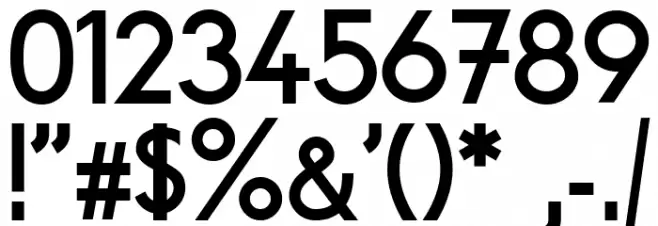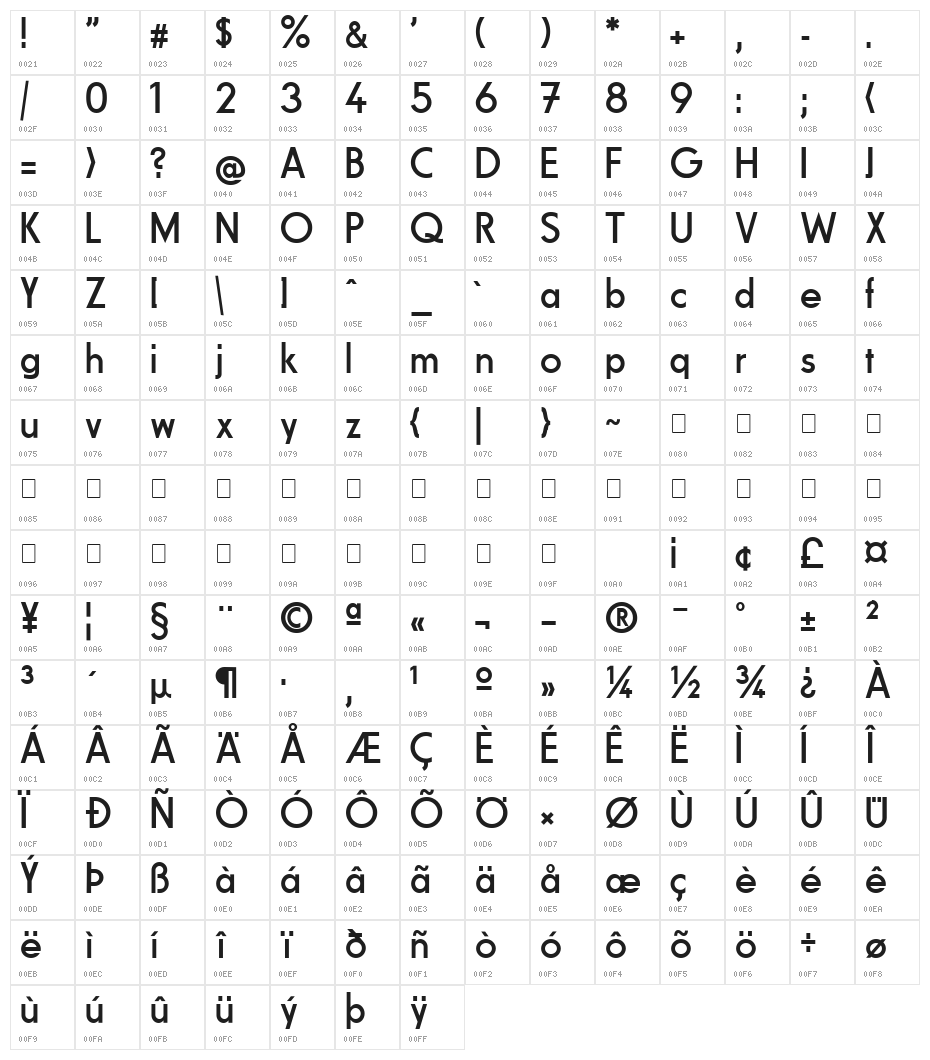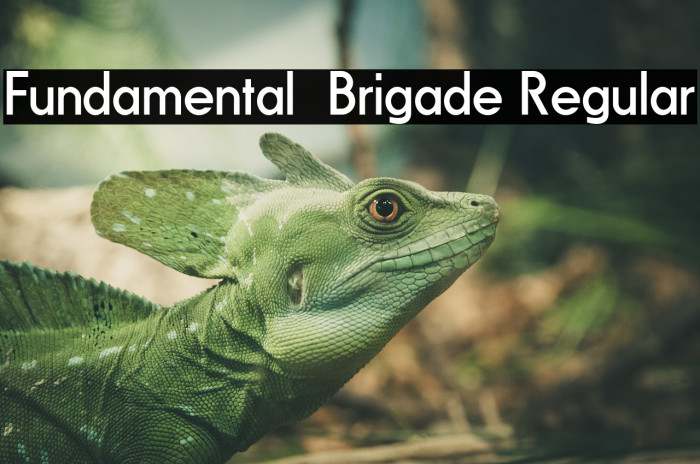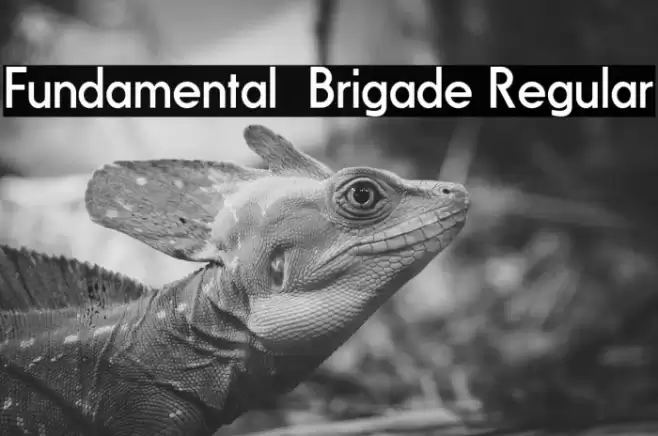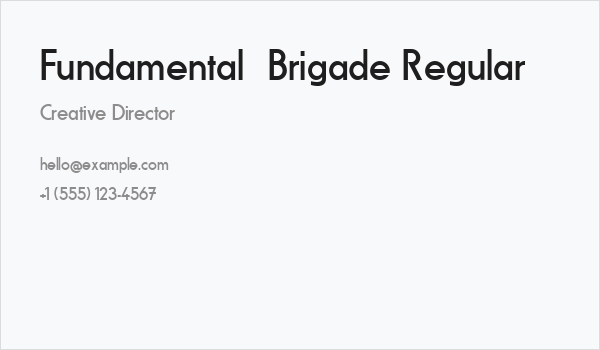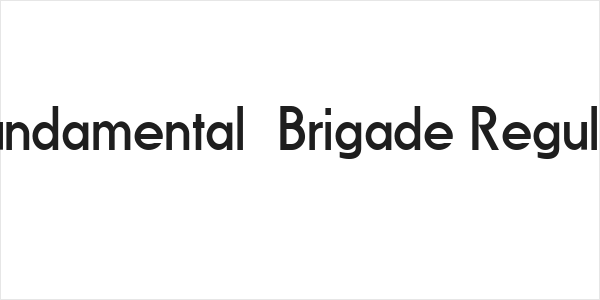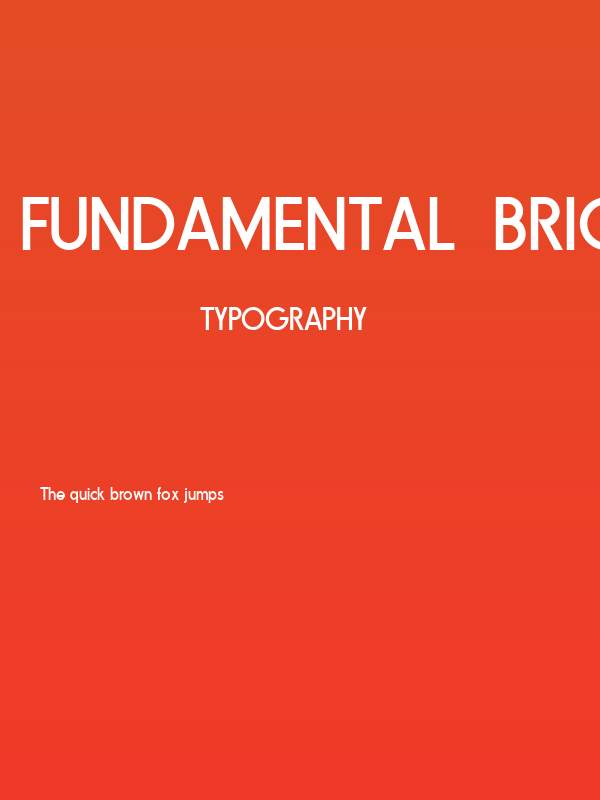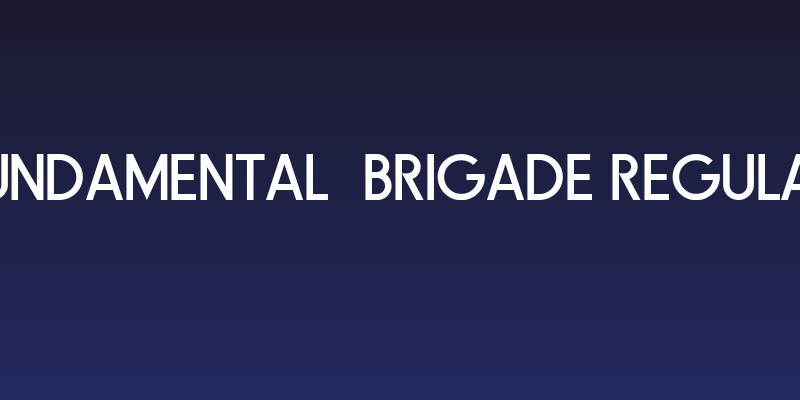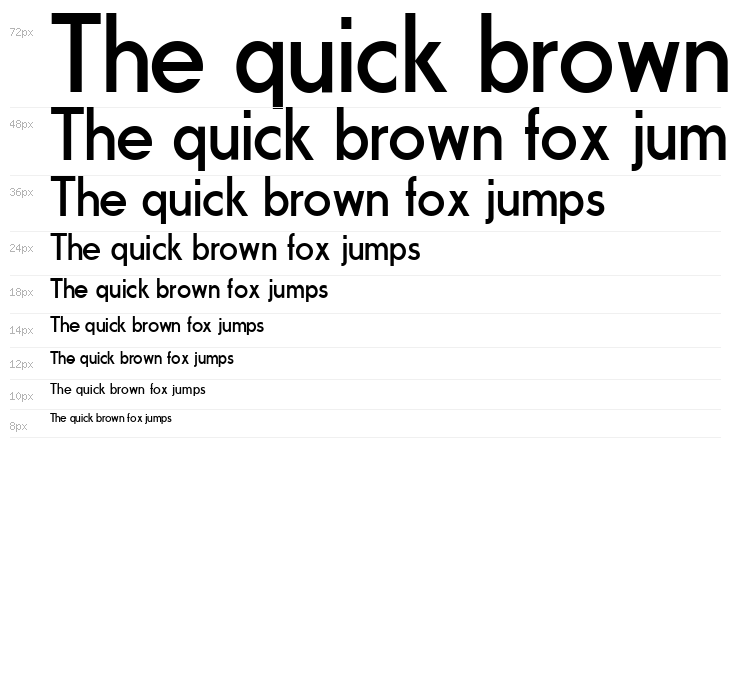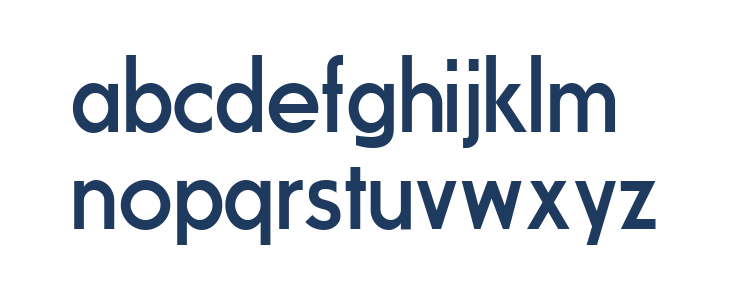
Fundamental Brigade Regular Font
Fundamental Brigade Regular Description
This font features a clean, modern sans-serif design with uniform stroke widths and a geometric structure. The characters are well-proportioned, with a consistent height and width that provides a balanced appearance. The uppercase letters are bold and assertive, while the lowercase letters maintain a harmonious flow. The numerals are clear and easily distinguishable, making them suitable for various applications. The special characters are designed to complement the overall style, ensuring a cohesive look across all text elements.
| Proposed Projects | Ideal for branding, advertising, web design, and editorial projects where clarity and modernity are key. |